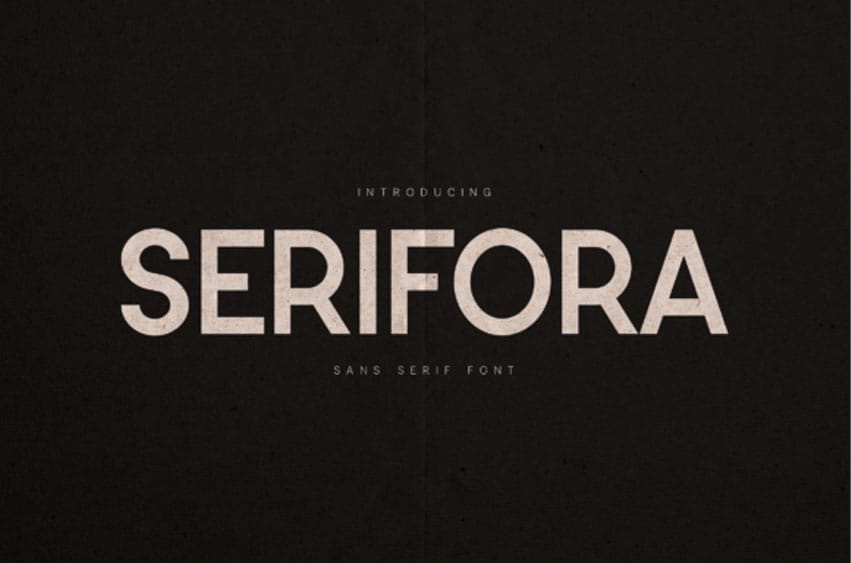
Serifora Font is a clean and contemporary sans serif typeface designed for bold communication and modern visual identity systems. Its solid structure and neutral personality make it highly versatile for both digital and print applications.
The typeface is crafted to perform beautifully in headlines, branding systems, posters, packaging, and modern editorial layouts. Serifora’s straightforward design gives designers a reliable foundation for projects that require clarity, strength, and timeless simplicity.